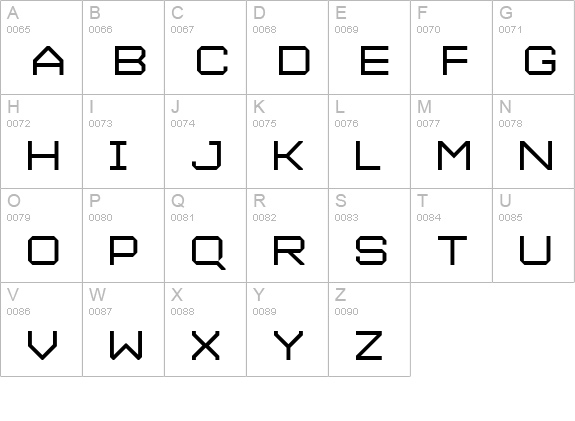
Maetl Light is a refined, elegant variant in the Maetl typeface family \xE2\x80\x94 well suited to elegant body text, refined sub-headings, and luxury branding.
Maetl Light is a visually stunning font that effortlessly combines elegance and modernity. With its sleek and streamlined design, this typeface exudes a sense of sophistication and refinement. Featuring clean lines and subtle curves, Maetl Light is perfect for projects that require a touch of finesse. Whether it's a logo, a brochure, or a website, this font will elevate your design and make a lasting impression. One of the most remarkable aspects of Maetl Light is that it is freely available to download at FontsMarket.com. This means that you can access this exceptional font without any cost, allowing you to enhance your creative endeavors without breaking the bank. Maetl Light is a versatile font that can be used across various mediums and applications. Its versatility makes it equally suitable for both print and digital projects. From business cards to social media graphics, this font will bring an air of professionalism and sophistication to your work. With its open and airy letterforms, Maetl Light is also highly legible, ensuring that your message is effectively conveyed to your audience. Its subtle yet noticeable presence will capture attention without overwhelming the overall composition. In conclusion, Maetl Light is a stylish and contemporary font that is not only visually appealing but also freely available to download at FontsMarket.com. Embrace this opportunity to add a touch of elegance and sophistication to your designs while enjoying the convenience of accessing this exceptional font without any cost.